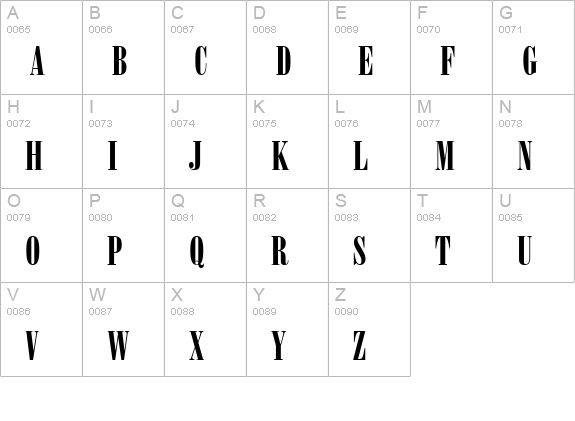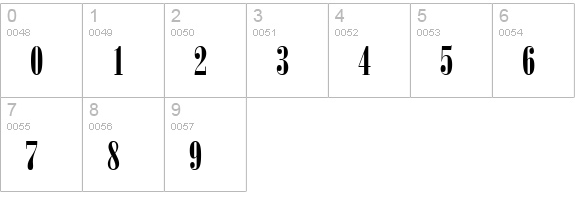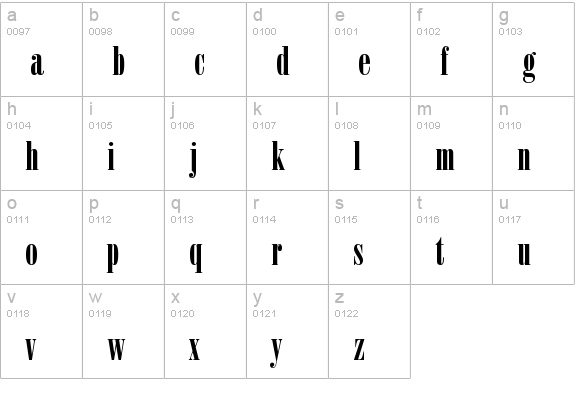
Bodoni Poster Condensed SSi Poster Condensed Font Details
Bodoni Poster Condensed SSi Poster Condensed is a distinctive, condensed-width variant in the Bodoni typeface family \xE2\x80\x94 well suited to design and typography projects.
The Bodoni Poster Condensed SSi Poster Condensed font exudes elegance and sophistication with its sleek, modern design. This striking typeface is perfect for making a bold statement in any design project. Its condensed form adds a touch of uniqueness and flair, making it ideal for headlines, posters, and other display purposes. And the best part? This stunning font is available for free download at FontsMarket.com! Don't miss out on the opportunity to enhance your projects with the distinctive style of Bodoni Poster Condensed SSi Poster Condensed font. Download it today and elevate your designs to the next level.